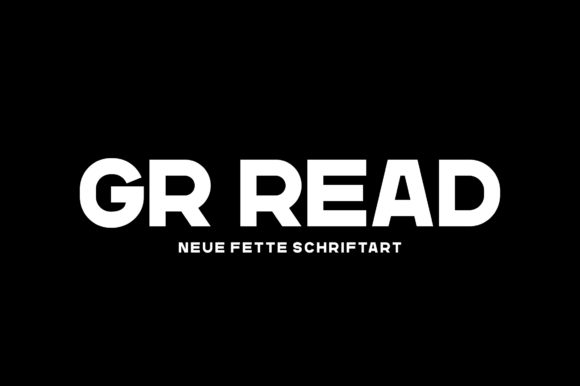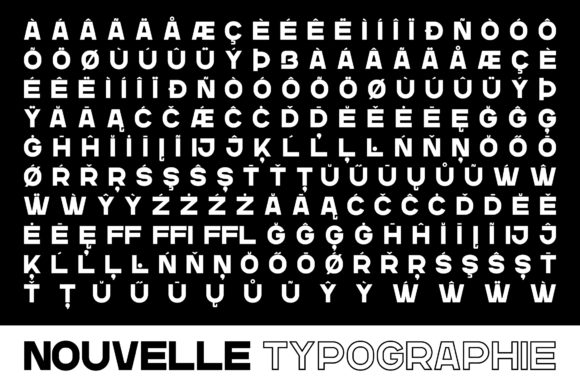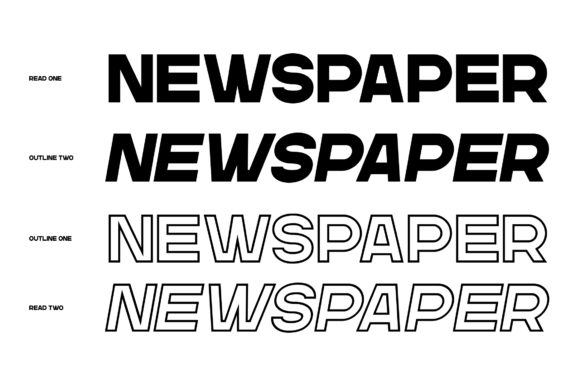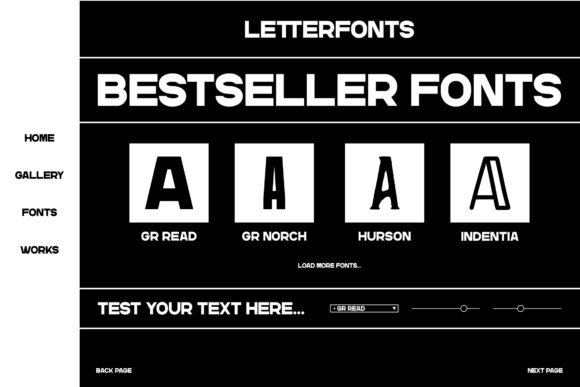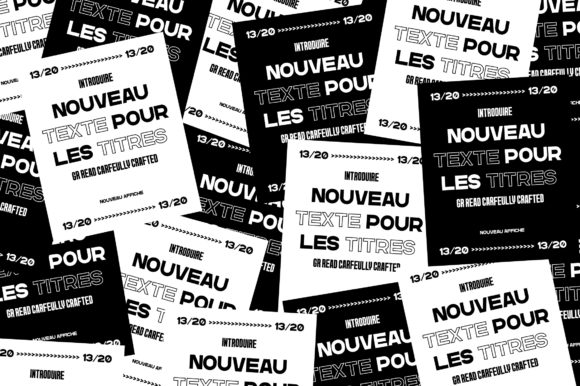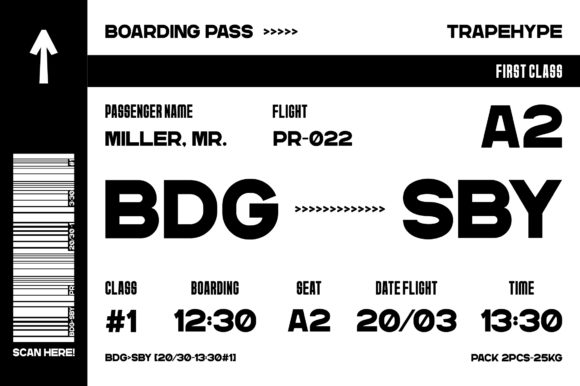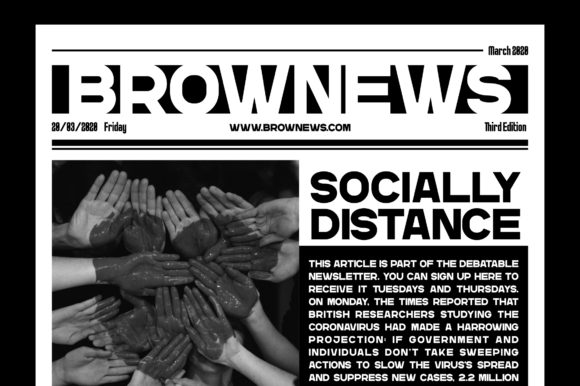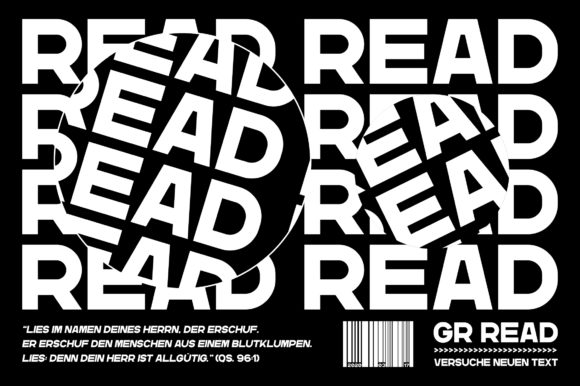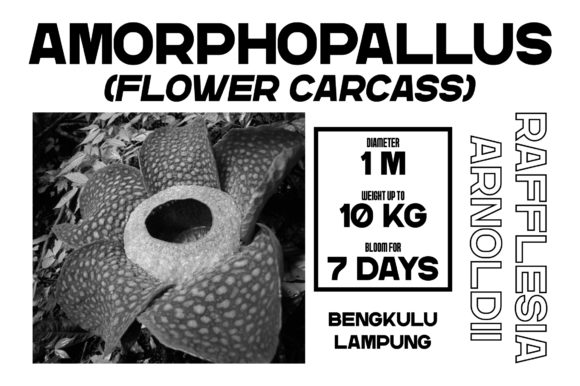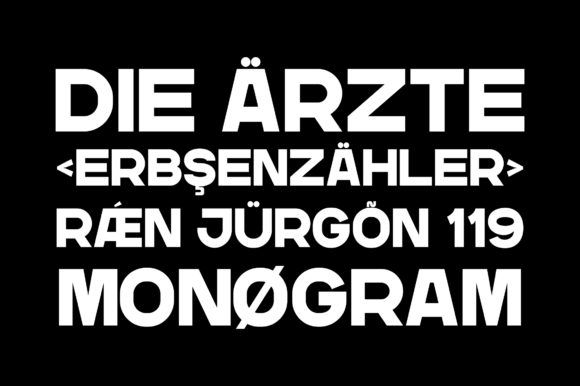
GR Read Font
About GR Read Font
GR Read is a bold sans serif font, carefully handcrafted to become a true favorite. This font is PUA encoded which means you can access all of the stunning glyphs and swashes with ease! It also features a wealth of special features including alternate glyphs and ligatures.